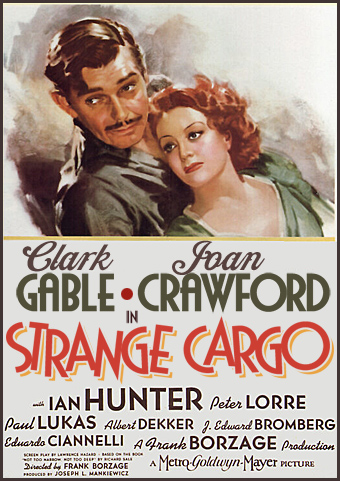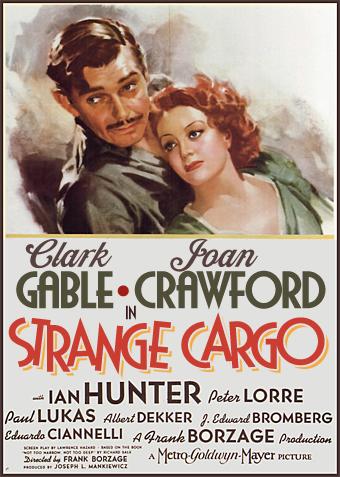
Art deco period style inspired by old movie and travel posters. Includes Regular and Bold versions. Each font features 23 alternate characters for the ability to customize the fonts to fit your needs.